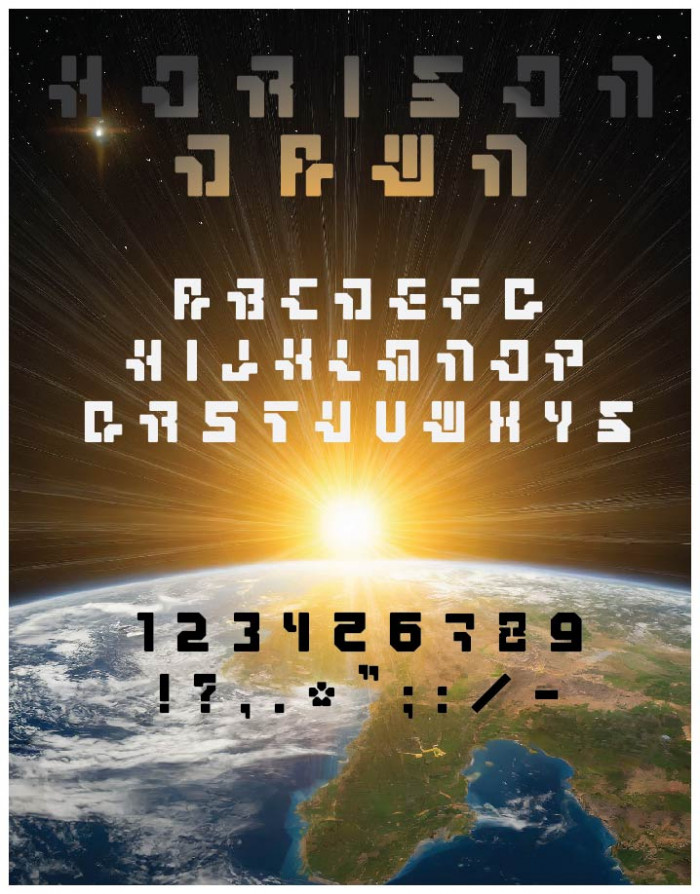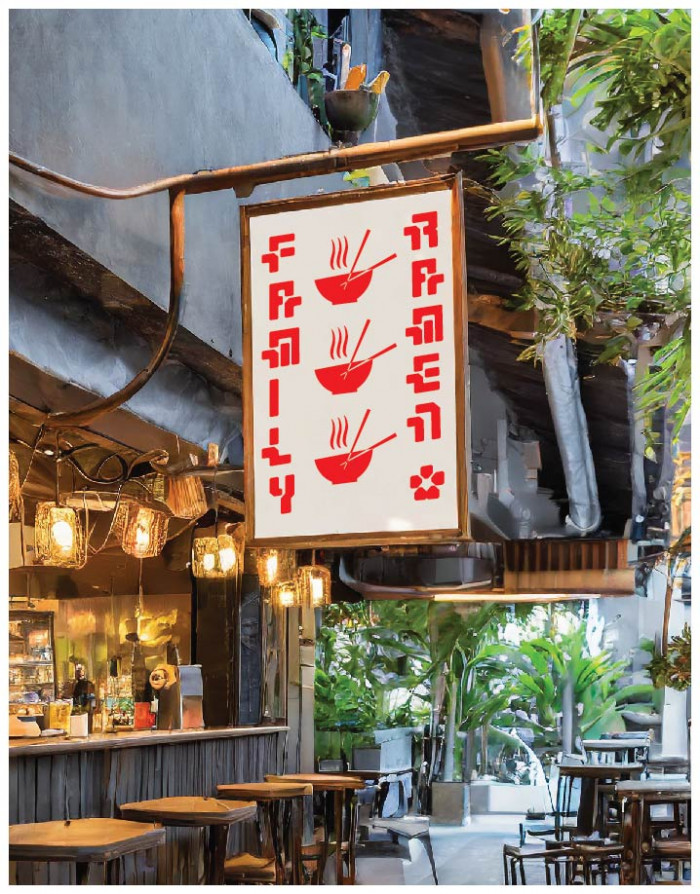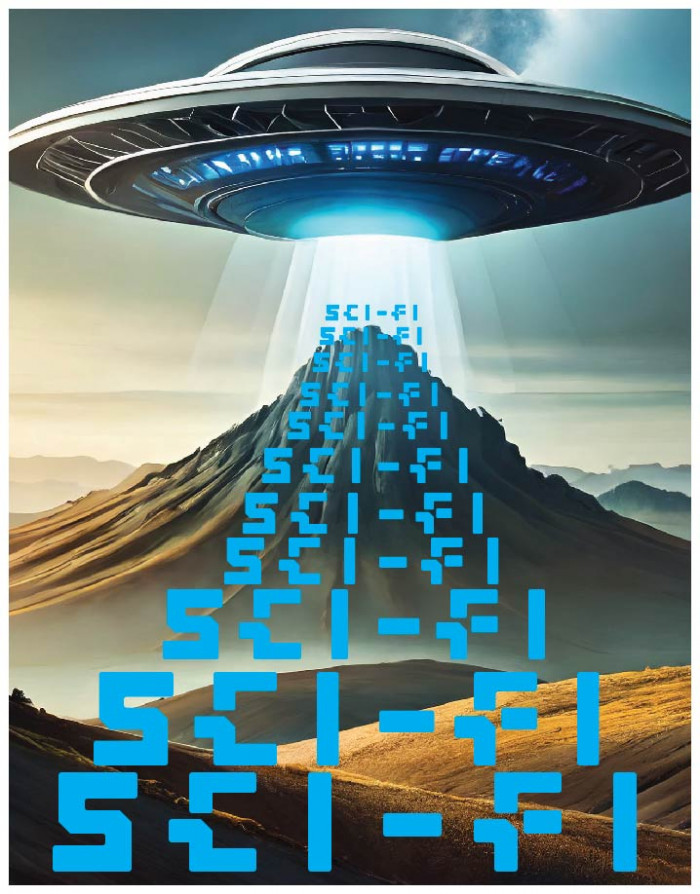
Full layout
Example of sign usage.
A close up example of the design, showing off the thick lines and hard bends.
Size comparison.
Horizon Dawnby KKaufer